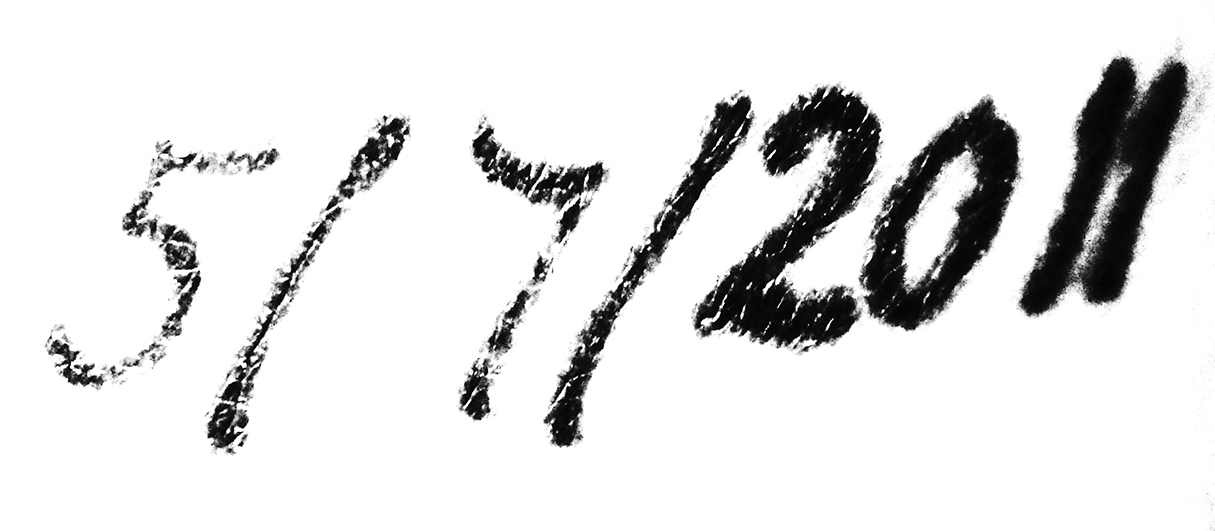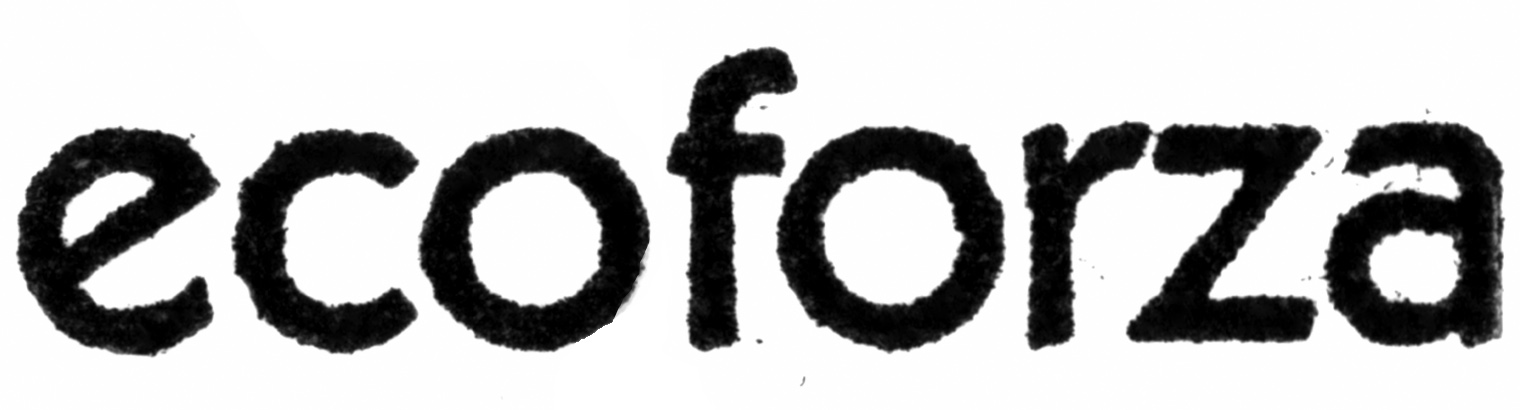
I'm not with my copy of Photoshop right now, are either included?
I thought the lower font was Univers, so thank you for your input!
Neither font is included with Photoshop.... they are not system fonts nor possibly part of an Adobe collection.
Looks like Papyrus, to me.
Papyrus is very close, but no cigar.... 🙄
Font ID Please
Hey All. I have this font somewhere but can't launch FontBook just now. One of you Eagle eyes can ID this I'm sure. It's fuzzy cause I scanned it of a Biz card I mocked up. Thanks!
Halp I've been tearing my hair out over this one for days now. It looks similar to Roadway but it's better. I've tried identifont and countless searches so I'm coming to y'all.
This is a tattoo I've had done, so the characters are a little off from what I remember. Trouble is I would like another of similar style with a differing date.